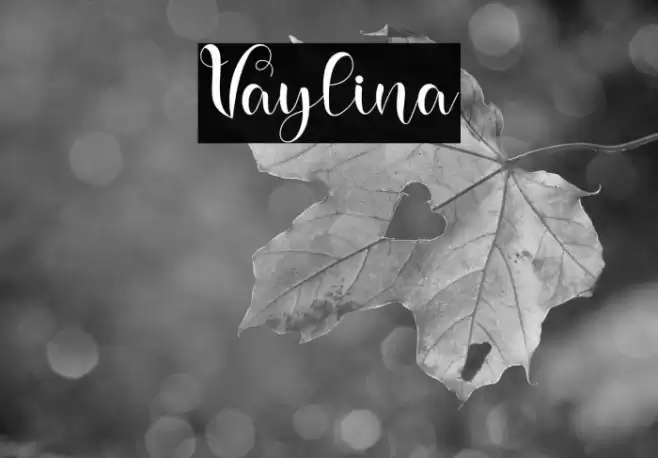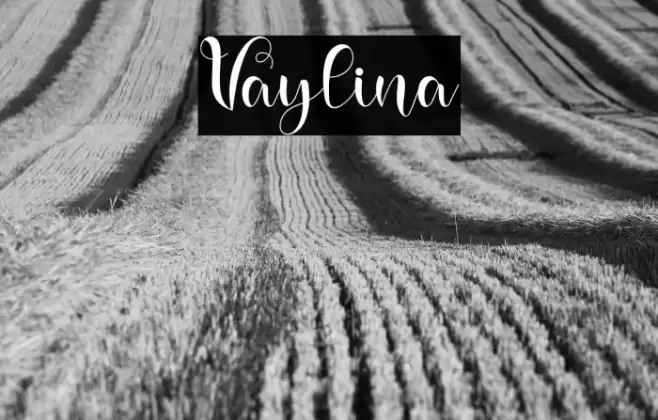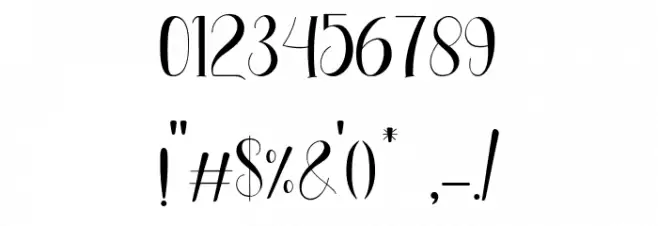
Vaylina Font
Vaylina Description
This elegant script font features a flowing, cursive style with intricate swirls and flourishes that add a touch of sophistication and grace. The uppercase letters are particularly ornate, with decorative loops and embellishments that create a sense of movement and fluidity. The lowercase letters maintain a consistent style, offering a smooth and connected appearance that enhances readability while retaining an artistic flair. The numerals are stylishly designed, complementing the overall aesthetic of the font. Special characters are thoughtfully integrated, maintaining the decorative theme. This font is ideal for projects that require a touch of elegance and creativity.
An elegant script font with ornate swirls and a flowing cursive style from Uncategorized fonts.
- Proposed Projects: Wedding invitations, luxury branding, elegant stationery, artistic posters, and decorative quotes.
- Use Case: Logos, Invitations, Decorative text